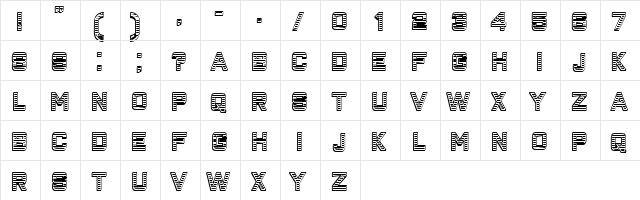
Closeness Outline Gradient Regular
Design Context for Closeness Outline Gradient Typeface
Closeness Outline Gradient brings ornamental detail and strong personality to headlines and identities, where visual impact matters more than quiet functionality.
Font Pairing: Pair with a clean neutral sans-serif for body copy to let Closeness Outline Gradient's character lead without overwhelming the composition.
Pro Tip: Use Closeness Outline Gradient exclusively at display sizes — it was designed to be seen, not read at length. Let a neutral companion handle body copy.